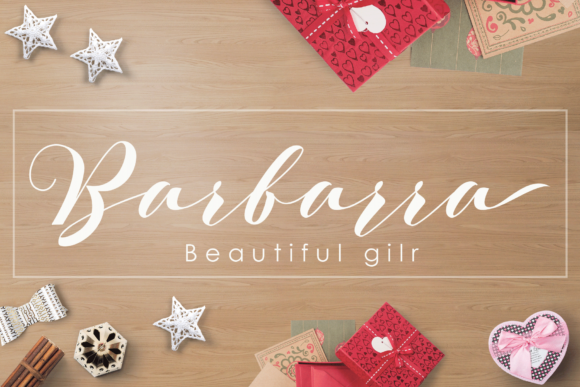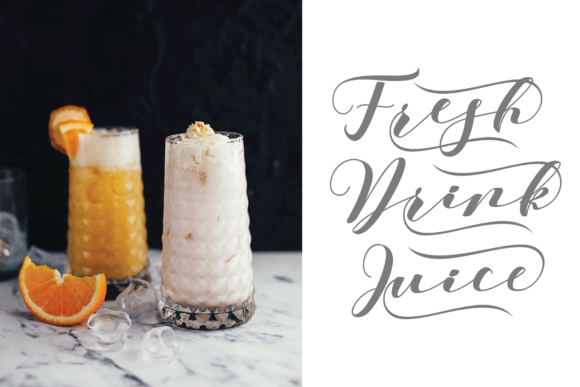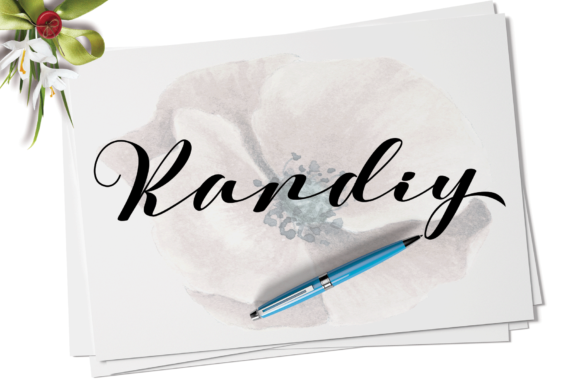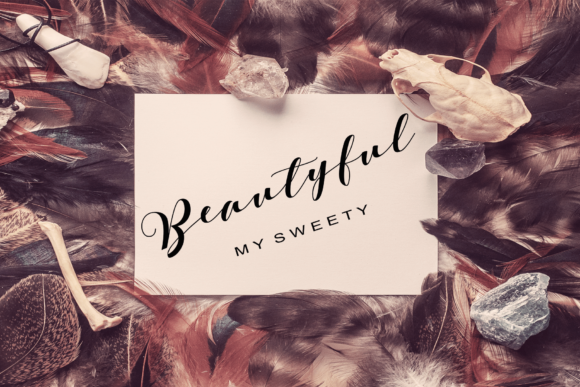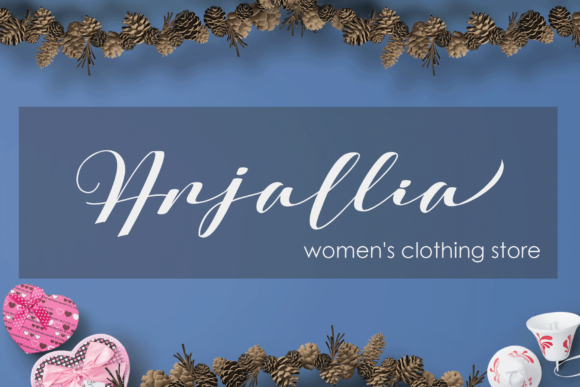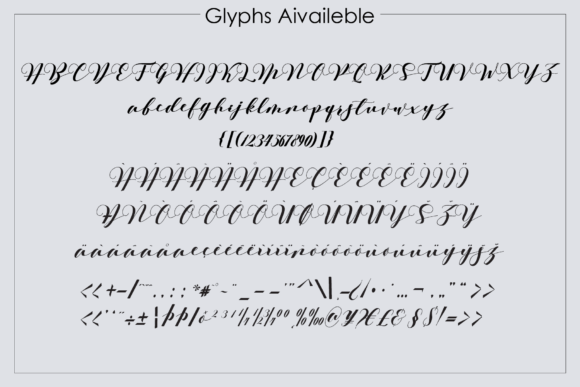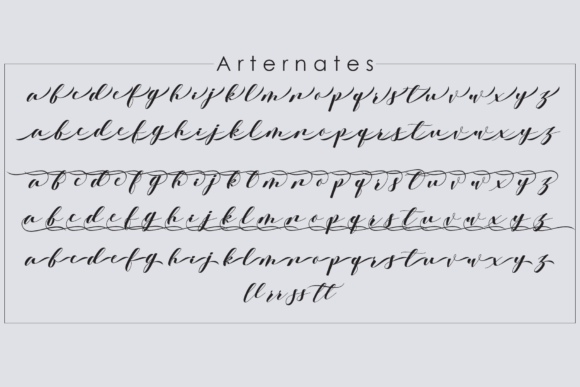
Delissa Font
About Delissa Font
The Delissa is a modern script font. It’s handwritten and includes unique forms of calligraphy.
The writing style is very natural which makes it perfect for adding a personal touch to your designs!